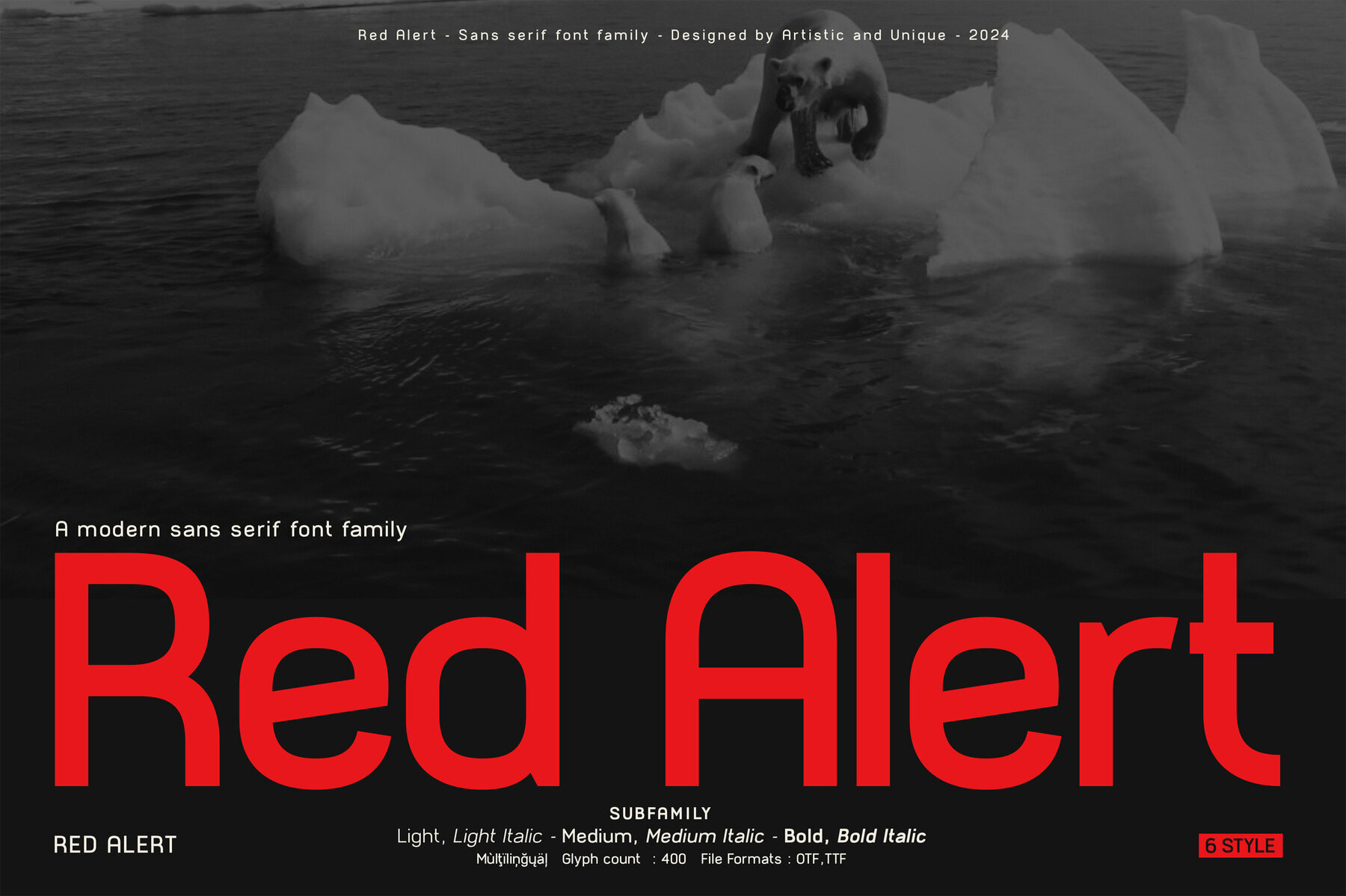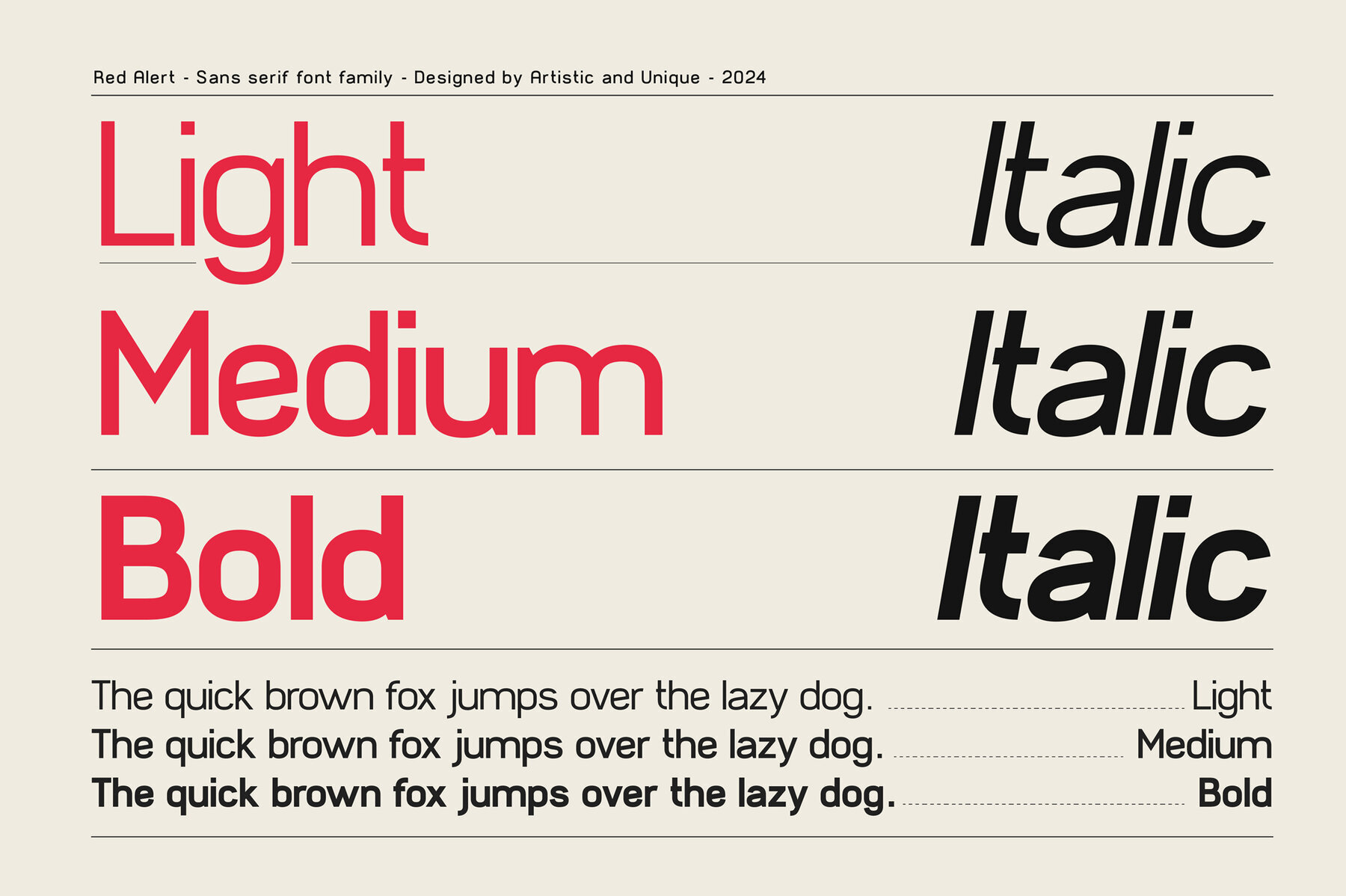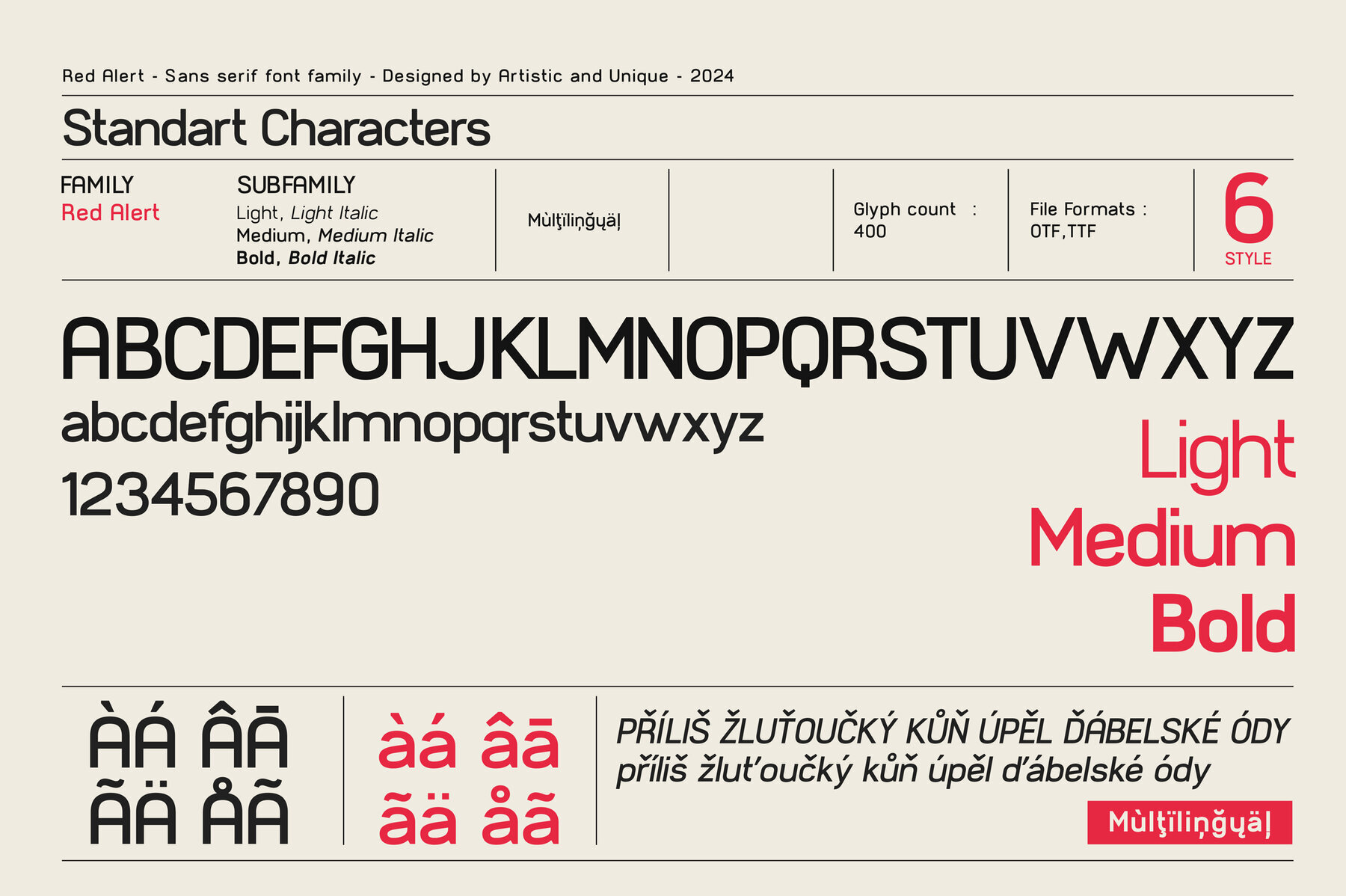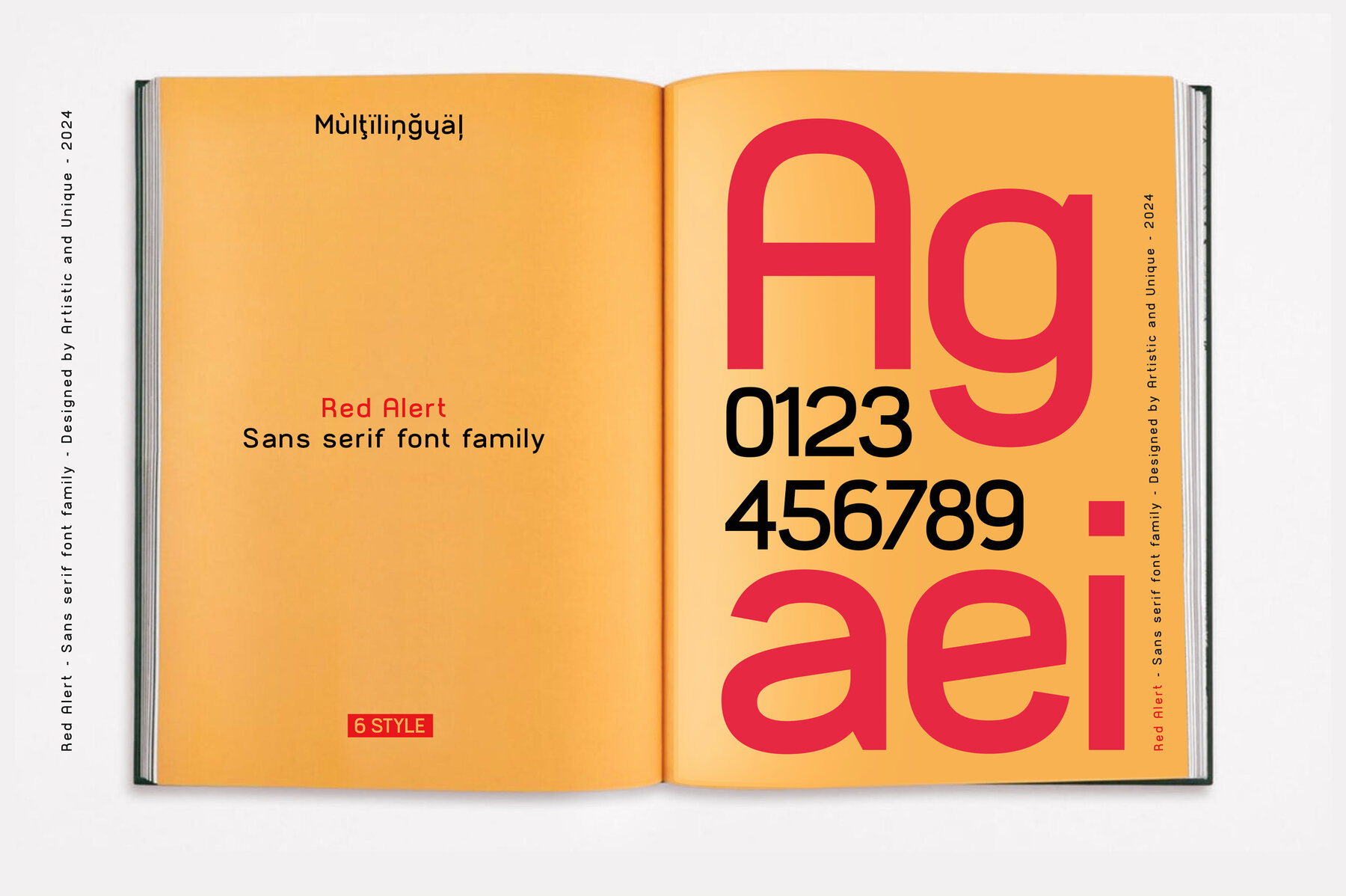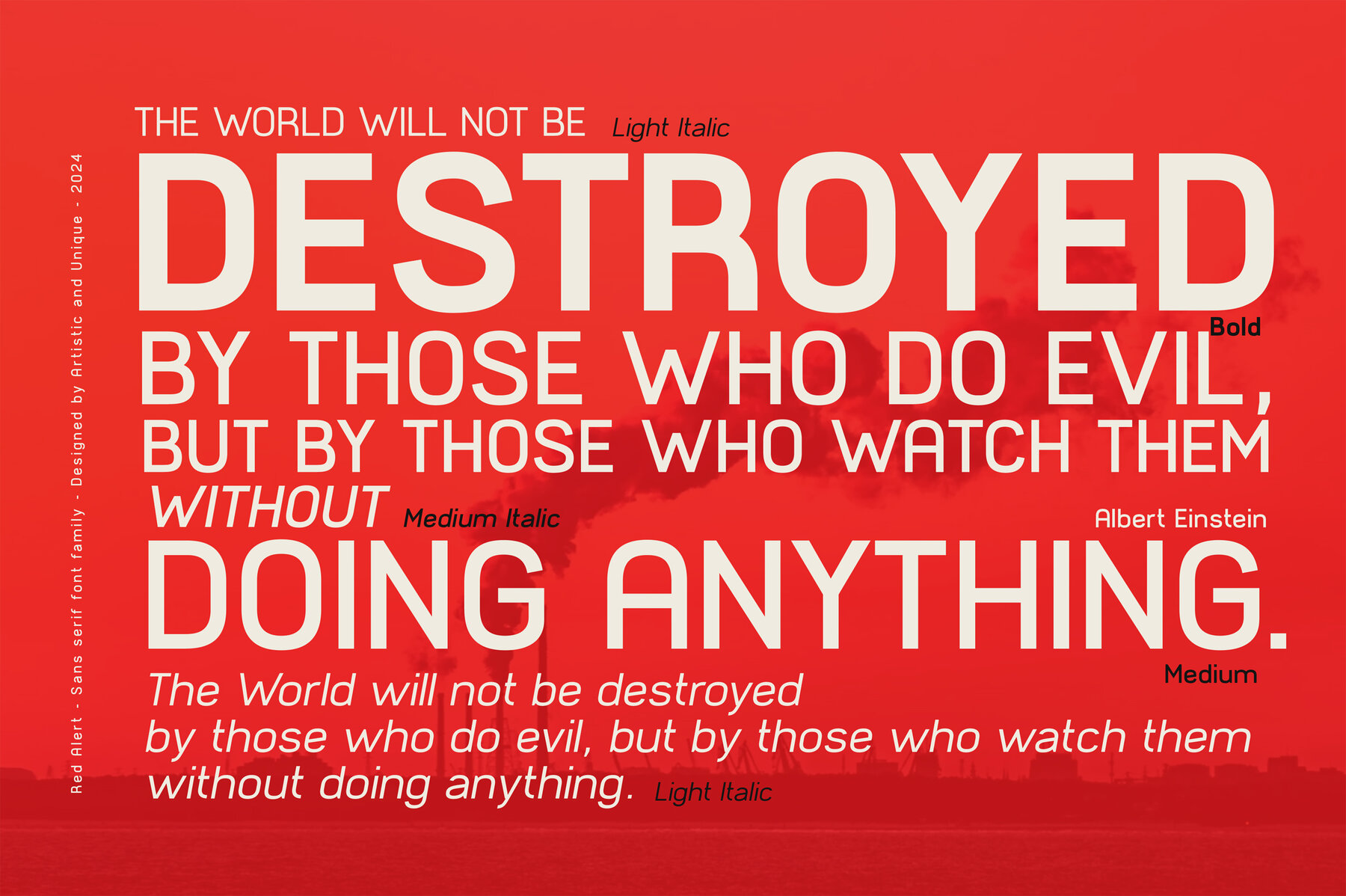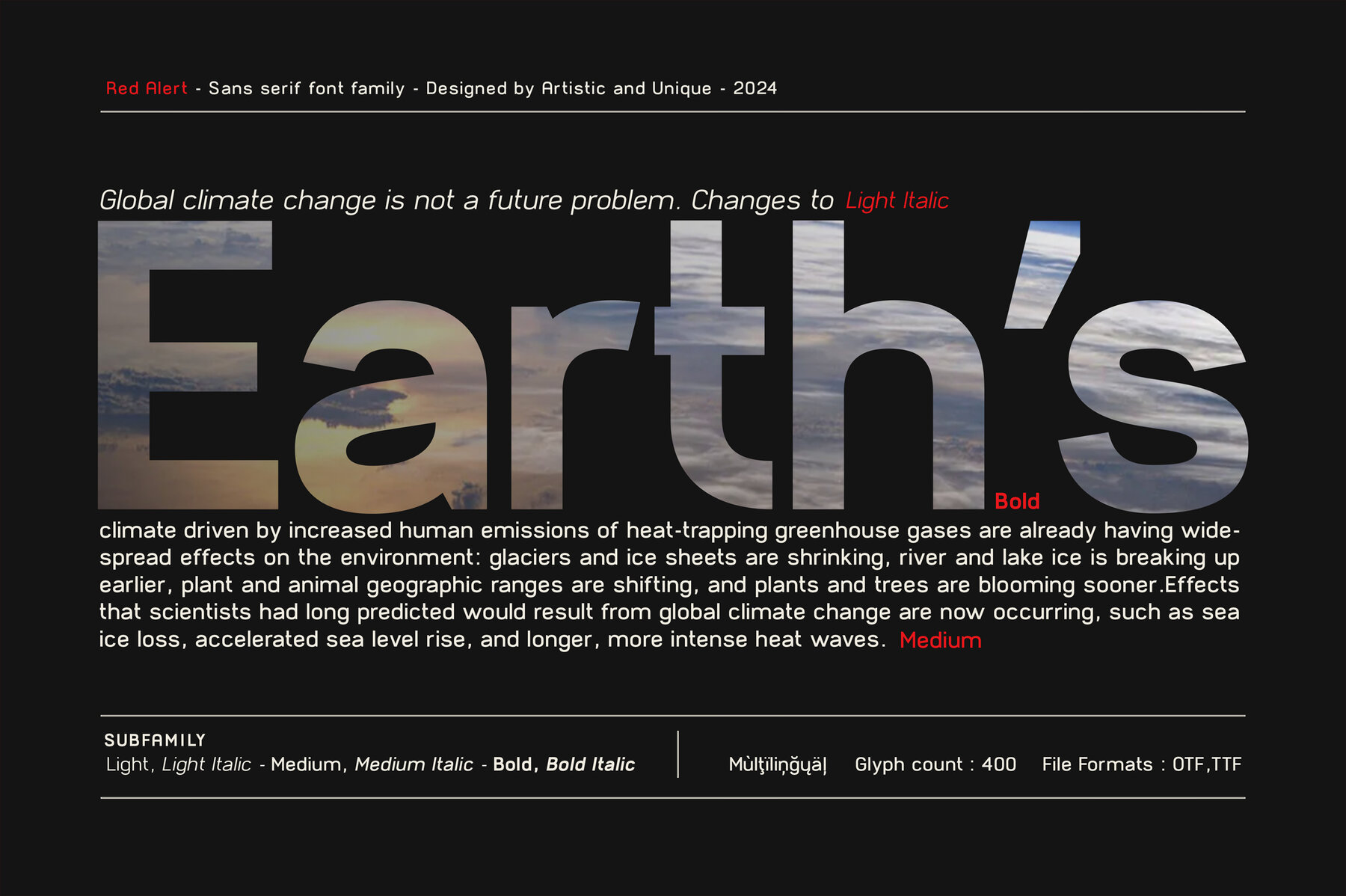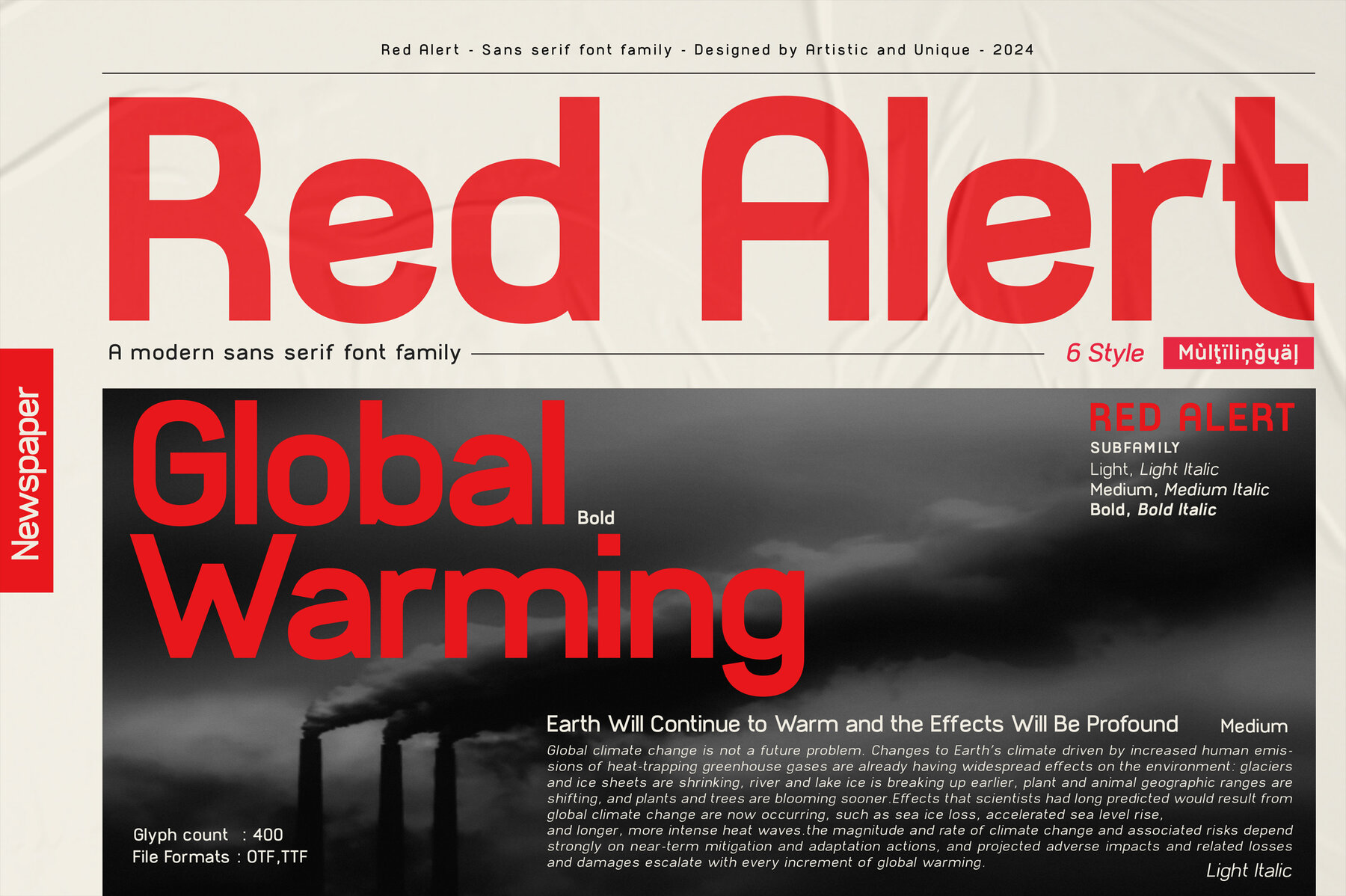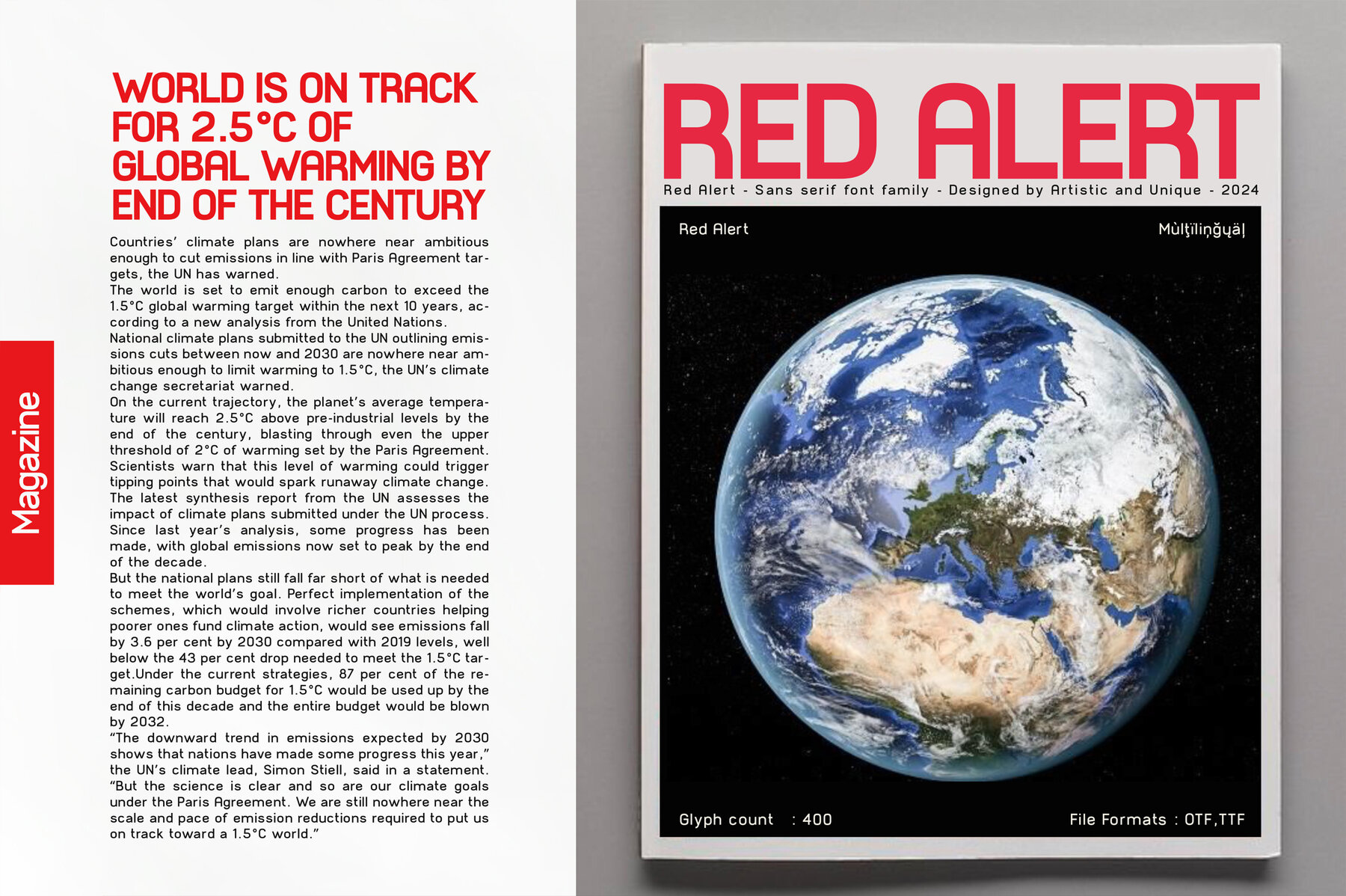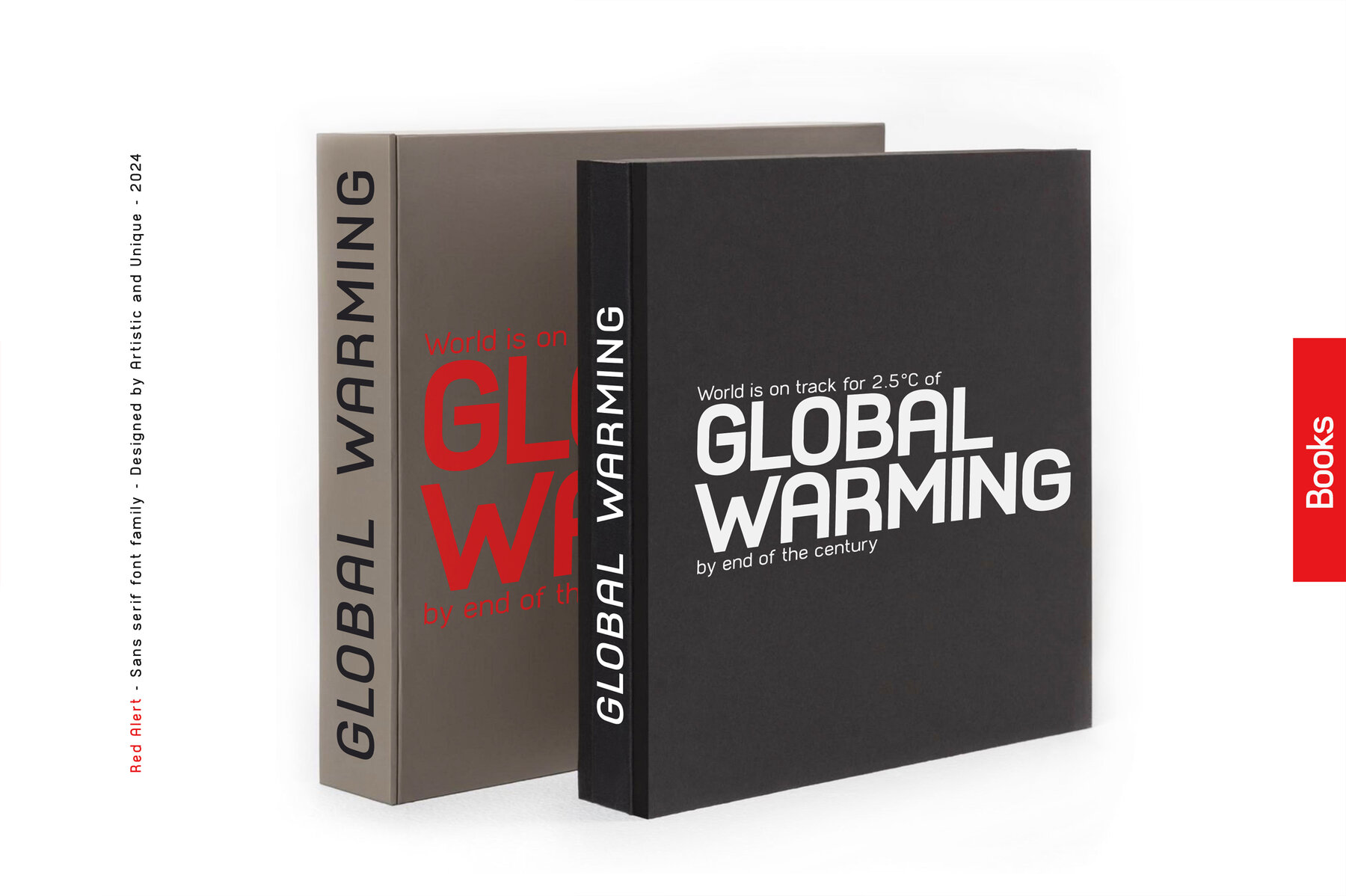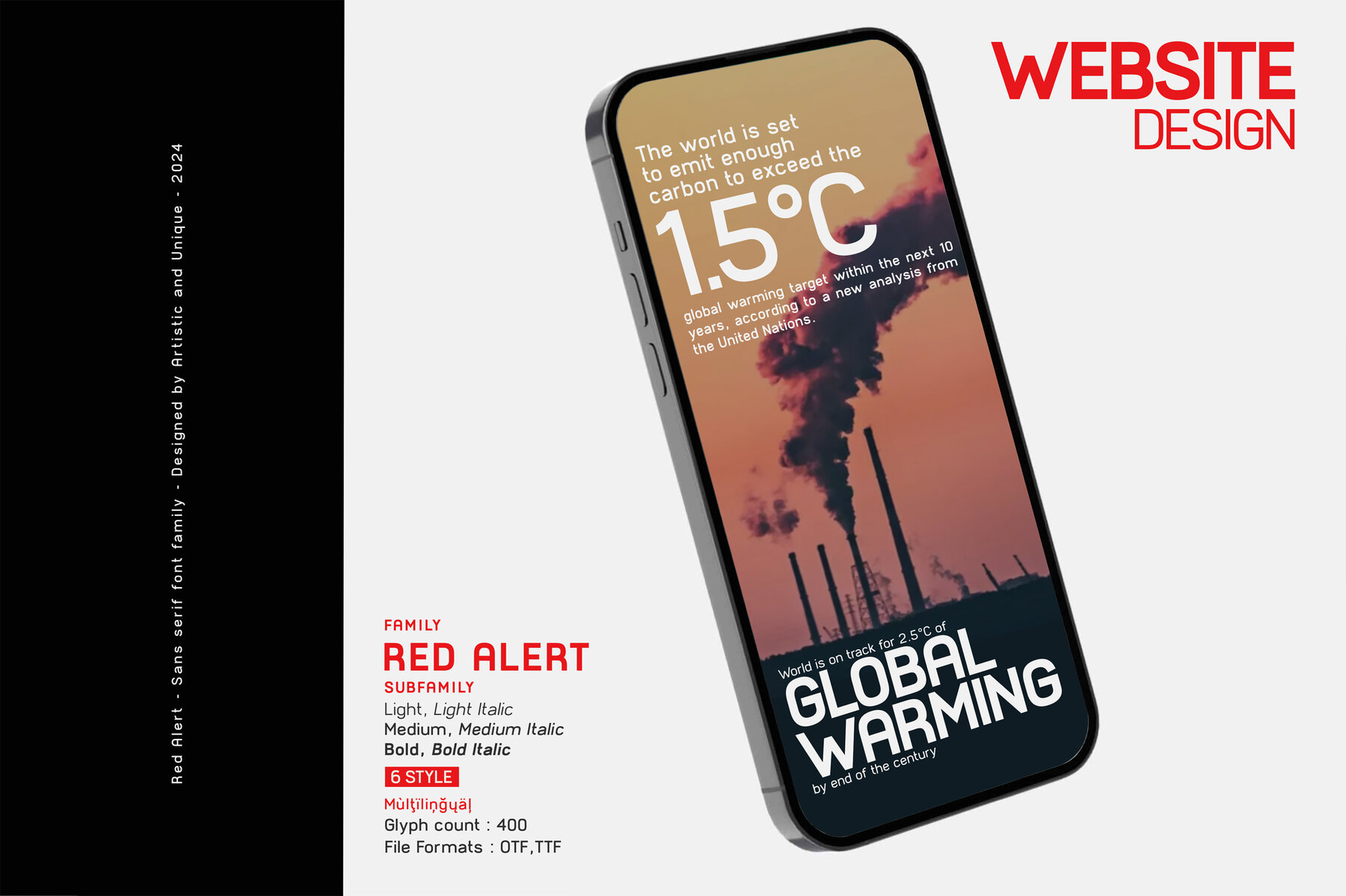
Red Alert Font
Red Alert is a compelling geometric sans serif font family designed to highlight the urgency of climate change and the modernism influenced by evolving technology. With six versatile styles and comprehensive multilingual support, it's a perfect fit for diverse design needs. This font excels in environments ranging from science and technology to corporate and space design, both in print and digital media. Its strong emotional resonance and structure make it ideal for impactful headlines and versatile in any project.Red Alert Sans Serif Font Family